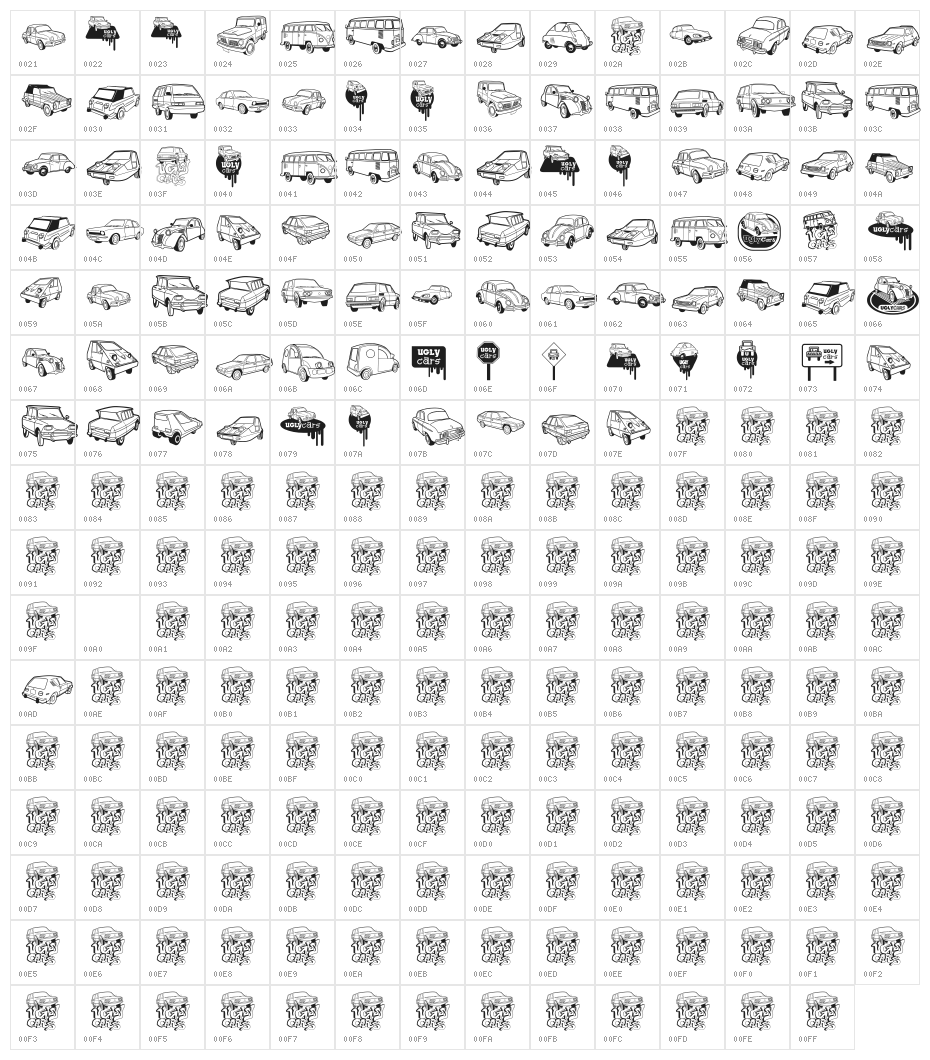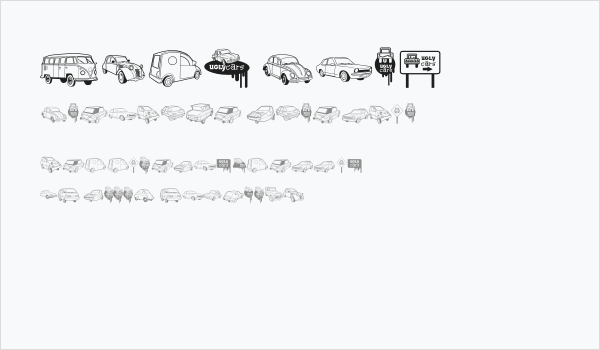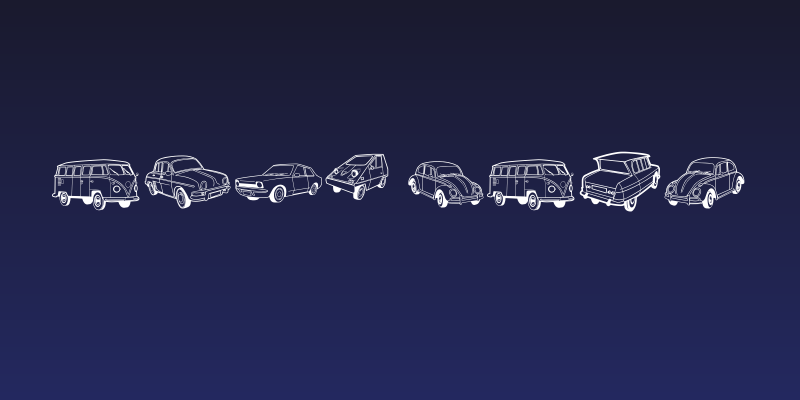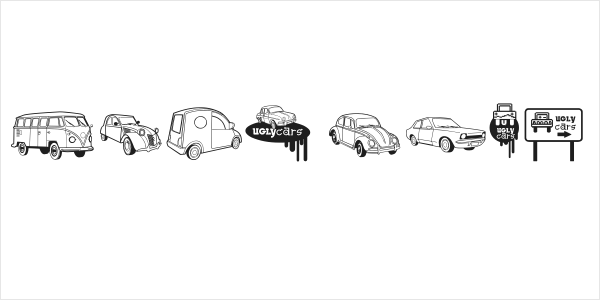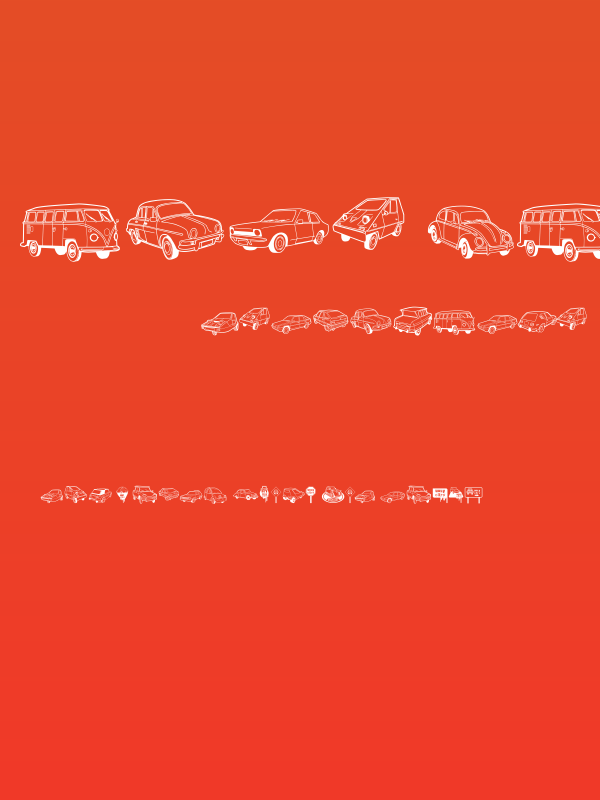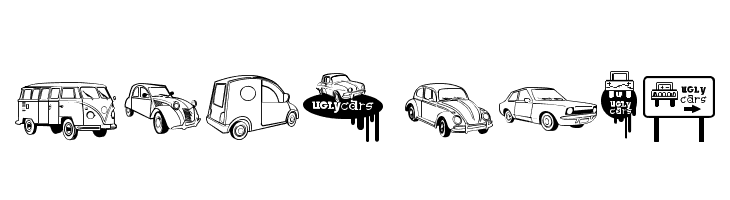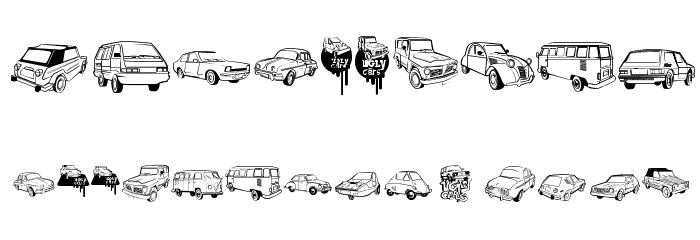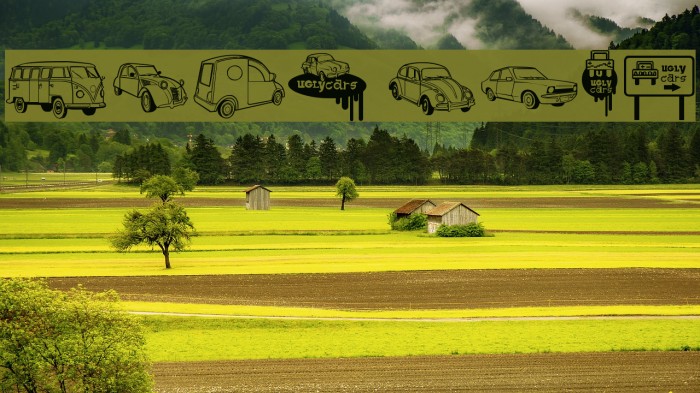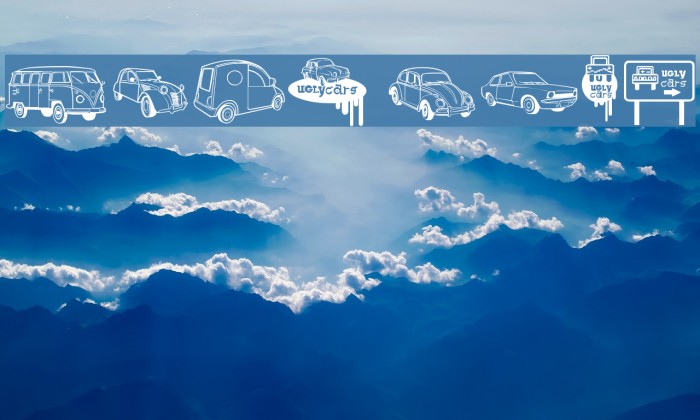
Ugly Cars Font
| Stile generale | Playful, Cartoonish, Decorative |
| Caso d'uso | Logos, Posters, Headlines, Themed Graphics |
| Progetti proposti | Children’s books, automotive event posters, novelty t-shirts, playful branding, educational materials, themed party invitations. |